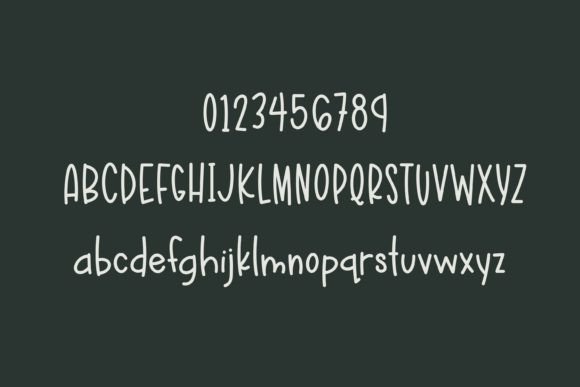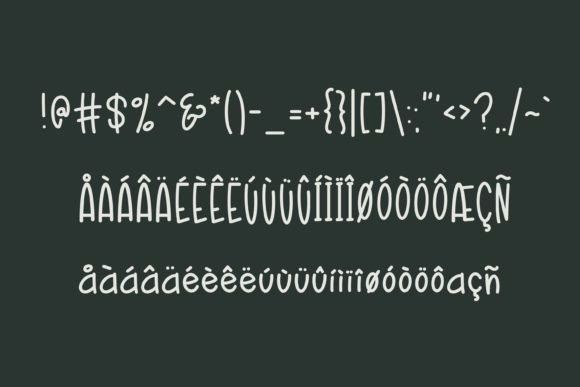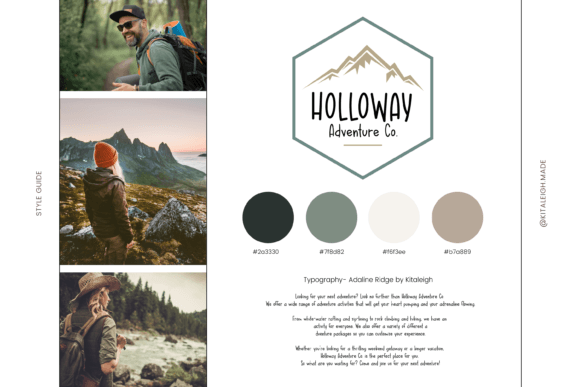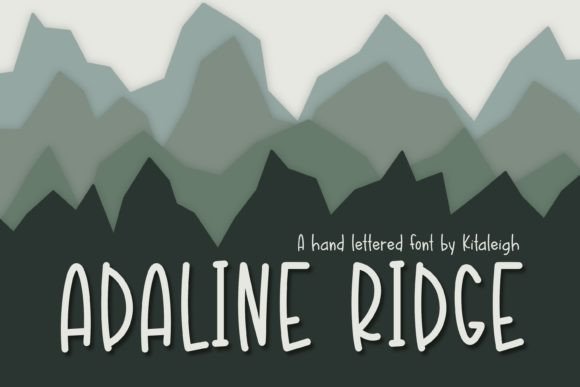
The Adaline Ridge Font: A Handwritten Gem for Creative Projects
I’ll never forget the time I was working on a branding project for a local craft bakery. My client wanted a font that would evoke the feeling of handmade, artisanal goods, but I was struggling to find the perfect fit. That’s when I stumbled upon the Adaline Ridge font, and it instantly became the perfect solution. Inspired by the beauty of nature and the art of handwritten letters, this font adds a personal, artisanal feel to any project.
As a designer, I’m always on the lookout for fonts that can elevate my projects and make them stand out. Here’s what I love about Adaline Ridge:
- ✨ Unique character: Adaline Ridge has a distinct, handwritten feel that’s perfect for projects that need a personal touch.
- ✅ Highly legible: Despite its artistic nature, this font is surprisingly easy to read, even at smaller sizes.
- 🌿 Nature-inspired: The font’s organic feel and floral-inspired glyphs make it perfect for projects related to gardening, sustainability, or outdoor activities.
Of course, no font is perfect, and Adaline Ridge has a few quirks to keep in mind:
- 🤔 Limited multilingual support: While Adaline Ridge supports several languages, it’s not suitable for projects that require a wide range of international characters.
- ⚠️ Occasional kerning issues: As with any font, you may need to adjust kerning manually to achieve optimal results, especially when using larger font sizes.
- Experiment with OpenType features like glyphs and stylistic alternates to add visual interest to your text.
The Story Behind Adaline Ridge
Adaline Ridge was designed by a talented type designer who drew inspiration from the natural world and the art of handwritten letters. With a passion for creating fonts that evoke a sense of warmth and personality, the designer poured their heart and soul into crafting Adaline Ridge. The result is a font that’s perfect for creative projects that need a touch of handmade charm.
| Font Name | Adaline Ridge Font |
| Author | kitaleigh |
| What is the Adaline Ridge font best suited for? | Adaline Ridge is perfect for creative projects that need a personal, artisanal feel, such as branding, packaging, and marketing materials for craft businesses, gardening or outdoor-related projects, and handmade or DIY products. |
| What languages does Adaline Ridge support? | Adaline Ridge supports several languages, including English, French, German, Italian, and Spanish. |